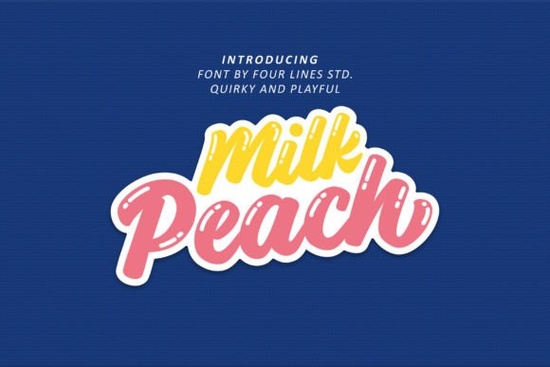
If you're looking for a display font that feels hand-drawn, cheerful, and full of character, Milk Peach Font might be exactly what your next project needs. Designed with irregular strokes, bouncy letterforms, and playful details, it’s not your average typeface it’s made to spark joy and stand out in a sea of predictable fonts.
Whether you’re creating greeting cards for kids, designing packaging for a whimsical product line, or adding personality to social media graphics, Milk Peach brings a lighthearted energy that’s hard to replicate with more structured fonts. Its charm lies in its imperfections: slightly uneven baselines, quirky terminals, and unexpected curves that mimic the spontaneity of handwriting but with just enough polish to remain legible and professional.
What kinds of projects work best with Milk Peach?
This font shines in contexts where fun, warmth, and approachability matter most. Think:
- Children’s book illustrations and covers
- Birthday party invitations or baby shower decor
- Branding for bakeries, toy shops, or boutique skincare lines with a youthful vibe
- Print-on-demand items like mugs, T-shirts, or tote bags featuring uplifting quotes
- Social media posts for lifestyle or parenting content creators
Because it’s a display font, Milk Peach isn’t meant for body text or long paragraphs. But used thoughtfully in headlines, logos, or short phrases, it adds instant personality without overwhelming your design.
How does it compare to other playful script fonts?
Milk Peach sits comfortably among these but stands apart with its deliberately “off-kilter” look. It doesn’t try to be neat or symmetrical. Instead, it embraces randomness in a way that feels authentic and human, almost like it was sketched quickly with a marker during a burst of inspiration.
Tips for using Milk Peach effectively
To get the most out of this font, keep a few practical considerations in mind:
- Pair it wisely. Combine Milk Peach with a simple sans-serif (like Montserrat or Open Sans) to balance its playfulness with clarity.
- Avoid all caps. The font’s personality really comes through in lowercase and mixed-case settings. Uppercase can flatten its expressive quirks.
- Use generous spacing. Because some letters have extended tails or flourishes, tight kerning might cause visual clutter.
- Limit usage to key elements. One headline, one quote, or one logo per design is usually enough. Overuse can make your layout feel chaotic.
Also, remember that while Milk Peach works beautifully in digital formats, it truly pops in physical products think vinyl decals, embroidered patches, or hand-lettered-style wall art. Its organic feel translates especially well to tactile mediums.
Who should consider this font?
Small business owners crafting brand identities for kid-focused or lifestyle products will find Milk Peach refreshingly different from overused script fonts. Print-on-demand sellers can use it to create designs that feel personal and handmade. Crafters making custom stickers, planner inserts, or party kits will appreciate how easily it conveys cheerfulness without looking generic. And hobbyists who simply love experimenting with typography? This font invites creativity without demanding perfection.
Before downloading, check that your software supports OpenType features if you want access to alternate characters or ligatures though even the basic set delivers plenty of charm right out of the box.
Ready to try it? If your current font library lacks something genuinely playful and full of soul, Milk Peach could be the missing piece. Just remember: the goal isn’t to be flashy it’s to connect with your audience through warmth and authenticity. And sometimes, that starts with a single, delightfully imperfect letter.
- ✅ Test the font with your actual project text before finalizing
- ✅ Pair with neutral colors to let the letterforms shine
- ✅ Avoid using it alongside other highly decorative fonts